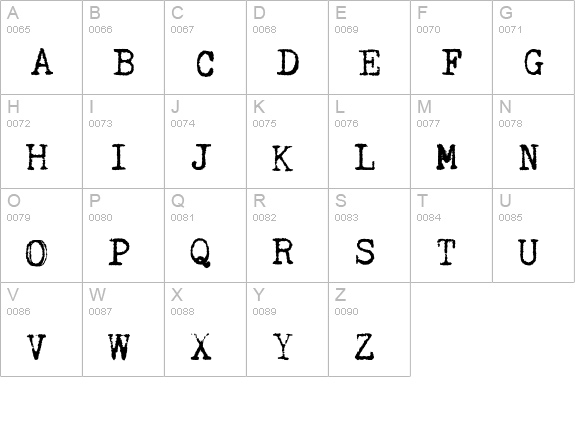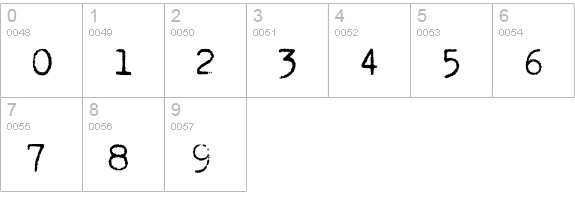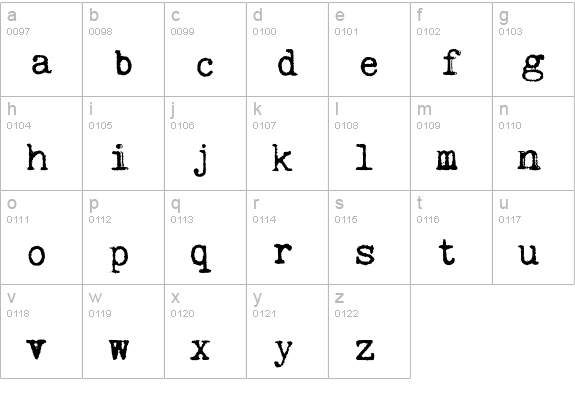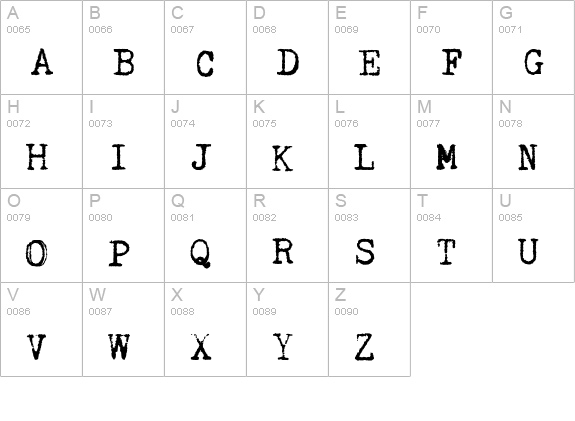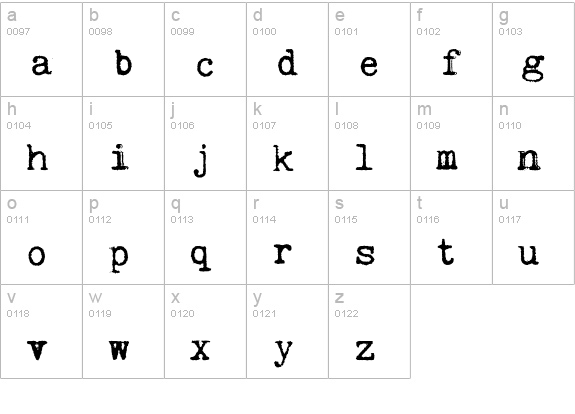
Kingthings Trypewriter is a classic and nostalgic font that seamlessly captures the essence of vintage typewriters. With its charmingly irregular letterforms and authentic aged appearance, this font brings a touch of old-world elegance to any project. Its distinctive and slightly worn-out style evokes a sense of nostalgia, transporting you back to a bygone era. Kingthings Trypewriter is a versatile font that is perfect for a wide range of applications. Whether you are designing retro-themed posters, creating vintage-inspired logos, or adding a touch of authenticity to your digital or print materials, this font is sure to make a lasting impression. One of the best things about Kingthings Trypewriter is that it is freely available to download at FontsMarket.com. This means that you can easily incorporate this unique font into your designs without any restrictions. Its availability for free allows both professional designers and casual enthusiasts to enjoy the beauty and charm of a typewriter font without any cost. The attention to detail in Kingthings Trypewriter is truly remarkable. The slightly worn-out edges and imperfectly aligned characters give this font a genuine and organic feel. It is as if each letter has been lovingly typed by an old-fashioned typewriter, leaving behind a charmingly imperfect impression on the page. The versatility of Kingthings Trypewriter is further enhanced by its extensive character set. With support for multiple languages and a wide range of special characters, this font ensures that your message can be conveyed accurately and elegantly, no matter the language or context. If you are looking to add a touch of vintage charm and elegance to your designs, Kingthings Trypewriter is the perfect choice. Its freely available download allows you to effortlessly bring the beauty of a typewriter font into your creative projects. So, go ahead and download Kingthings Trypewriter from FontsMarket.com today, and let your designs transport your audience to a nostalgic and timeless era.